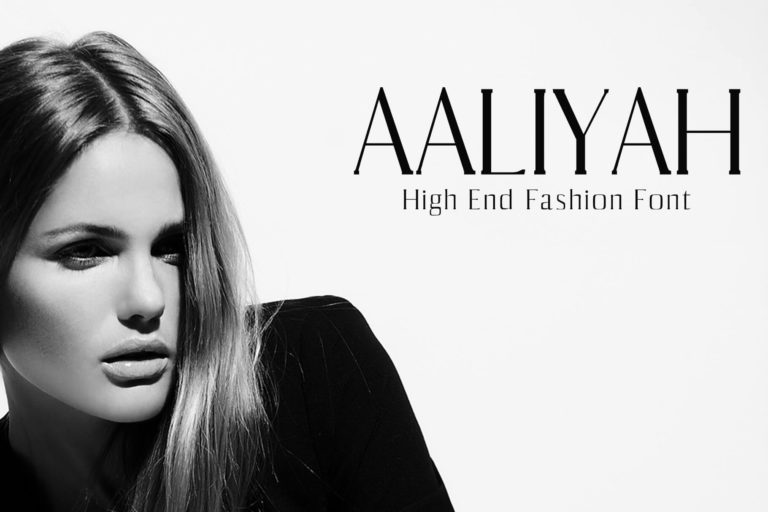
- Aaliyah Serif Typeface
Introducing Aaliyah Serif Typeface, a game-changer in the realm of design. This typeface is a perfect fusion of classic charm and modern sensibility, creating a unique aesthetic that sets your work apart. With its elegant curves and refined edges, Aaliyah Serif Typeface adds a layer of sophistication to your projects, making it the go-to choice for logos, headlines, and more.
But Aaliyah Serif Fonts are more than just a pretty face. It’s crafted with a keen focus on functionality, ensuring each character is clear and readable. Whether you’re designing a sleek website, creating an eye-catching poster, or developing a brand’s visual identity, Aaliyah Serif Typeface delivers the versatility and style you need.
Imagine using Aaliyah Serif Typeface in your next branding project. Its distinctive style could be the defining factor that sets a brand apart in a crowded market. Or consider its impact in editorial design, where its readability can enhance the user experience, making content more engaging and accessible. Even in digital designs, Aaliyah Serif Typeface shines, providing a classic touch to modern platforms.
Aaliyah Serif Font Collection isn’t just a typeface; it’s a powerful design tool that can transform your work and impress your audience. Experience the Aaliyah Serif Typeface difference today and take your designs to new heights.
- Regular, Light, Thin, Black, Bold
Aaliyah Font Features:
- Uppercase Multilingual Letters
- Lowercase Multilingual Letters
- Non English Characters ( Latin Supplement + Latin Extended A)